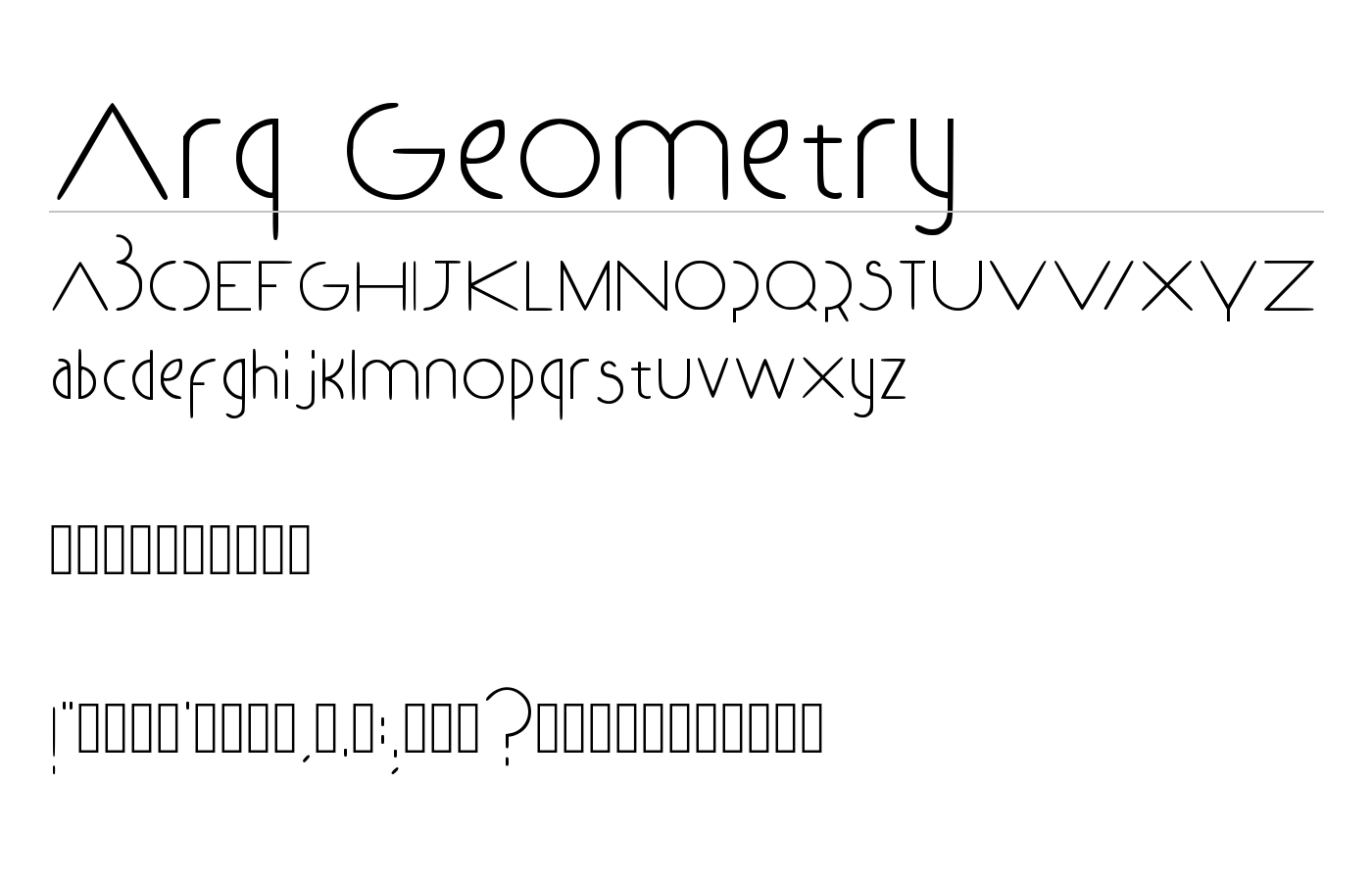
Arq Geometry is a delicate, modern sans serif font with a distinct geometric style and very thin strokes. Its slender letterforms and unique shapes give it an elegant, futuristic feel, ideal for minimalist branding, editorial headlines, and creative design projects that seek a refined, innovative look. This font works best where clean, airy aesthetics are desired, making it perfect for fashion, technology, and contemporary art applications.
Arq Geometry Font
About Arq Geometry Font